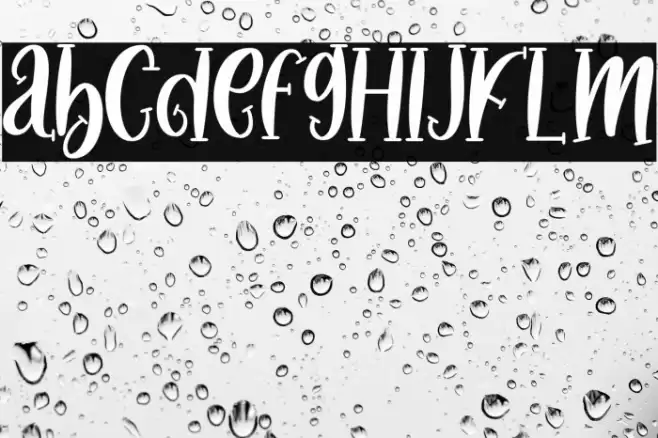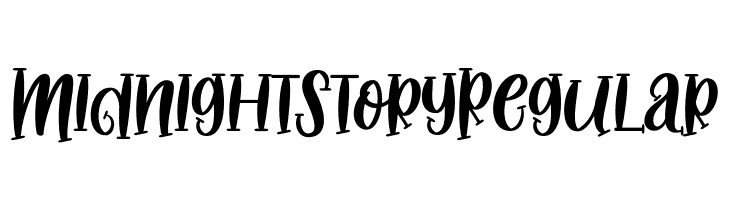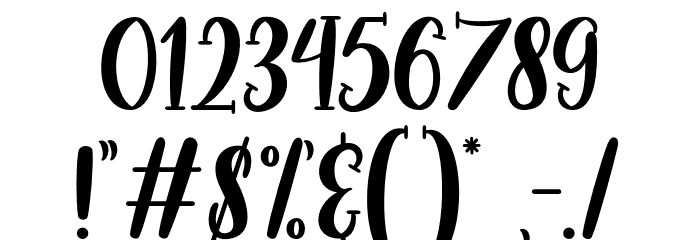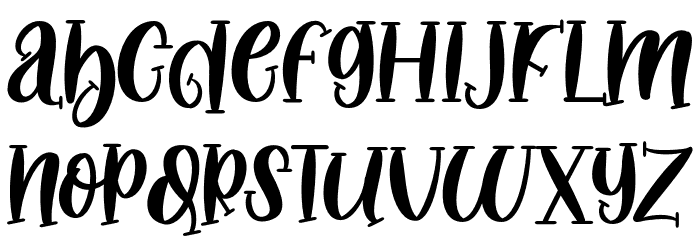
MidnightStoryRegular Font
MidnightStoryRegular Description
This font features a bold and expressive style with a handwritten flair. The characters are crafted with a sense of movement and fluidity, giving them a dynamic and lively appearance. The uppercase letters are tall and slightly narrow, with unique flourishes that add a touch of elegance. The lowercase letters maintain a consistent style, complementing the uppercase with their own distinct curves and loops. Numbers are bold and easily readable, while the special characters are designed to match the overall aesthetic. The font's playful yet sophisticated look makes it suitable for a variety of creative projects.
A bold, expressive handwritten font with dynamic curves and elegant flourishes from Cartoon fonts.
- Proposed Projects: Ideal for branding, invitations, posters, and creative design projects that require a touch of elegance and personality.
- Use Case: Logos, Headlines, Invitations